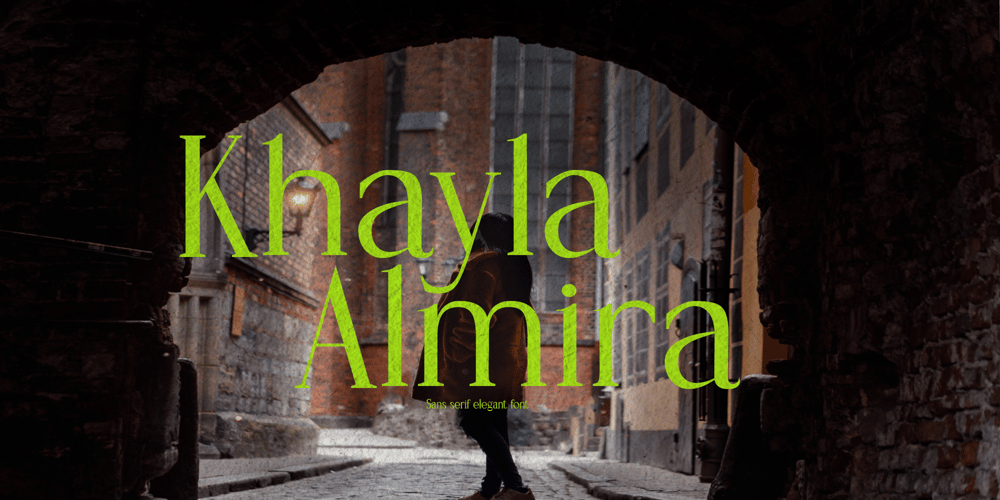
Khayla Almira
Khayla Almira font
Khayla Almira Font Family was designed by Rachmad Bagus Fatchi and published by Studio Hello Good. Khayla Almira contains 6 styles and family package options. Khayla Almira is a clean and elegant sans serif font, this font also provides ligature and alternate letters, this font itself has 6 families, namely regular, line, bold, regular italic, line italic and bold italic. for use as logos, display designs, and also for other purposes, make sure you have this font collection on your device.